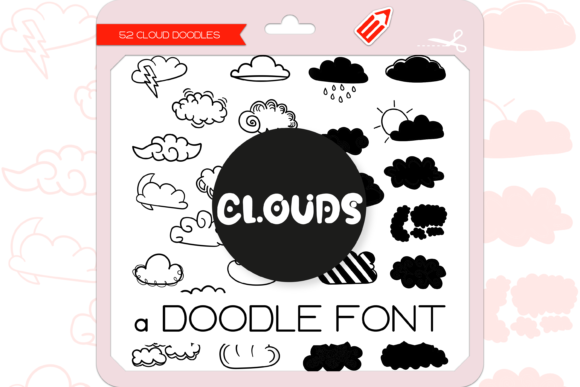
Welcome to the whimsical world of Clouds Dingbats, a font family that will transform your designs into a visual masterpiece! Inspired by the beauty of the sky, this set of 52 hand-drawn doodles captures the essence of fluffy clouds, offering limitless possibilities for your creative endeavors.
With Clouds Dingbats, you'll elevate your designs and captivate your audience with an unforgettable visual experience. Envision borders, dividers, and frames adorned with these charming clouds, adding a touch of whimsy and enchantment to your work. Unleash your imagination and incorporate these doodles into your designs, making them stand out from the ordinary.
Whether you're a professional designer or simply a creative enthusiast, Clouds Dingbats is the perfect tool to bring your ideas to life. Its versatility extends from film scripts to social media posts, website designs, and beyond. Experience the magic of Clouds Dingbats and elevate your creations to new heights!